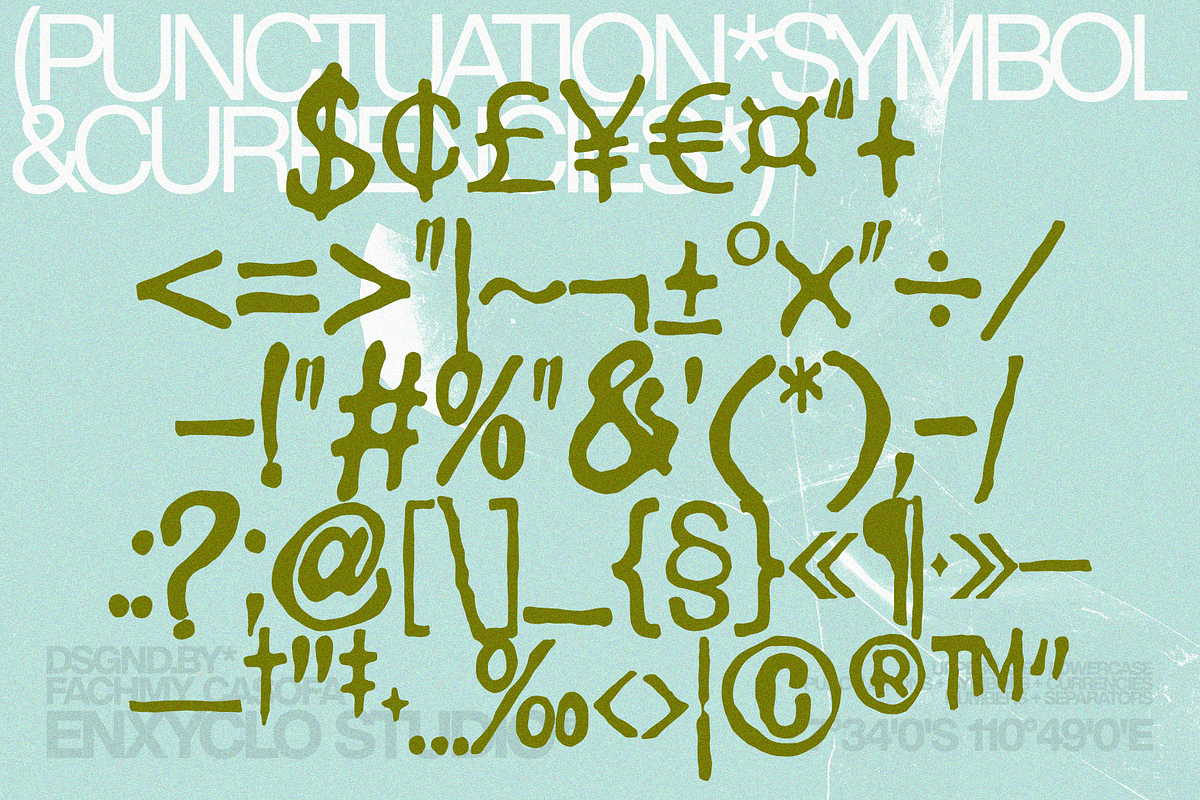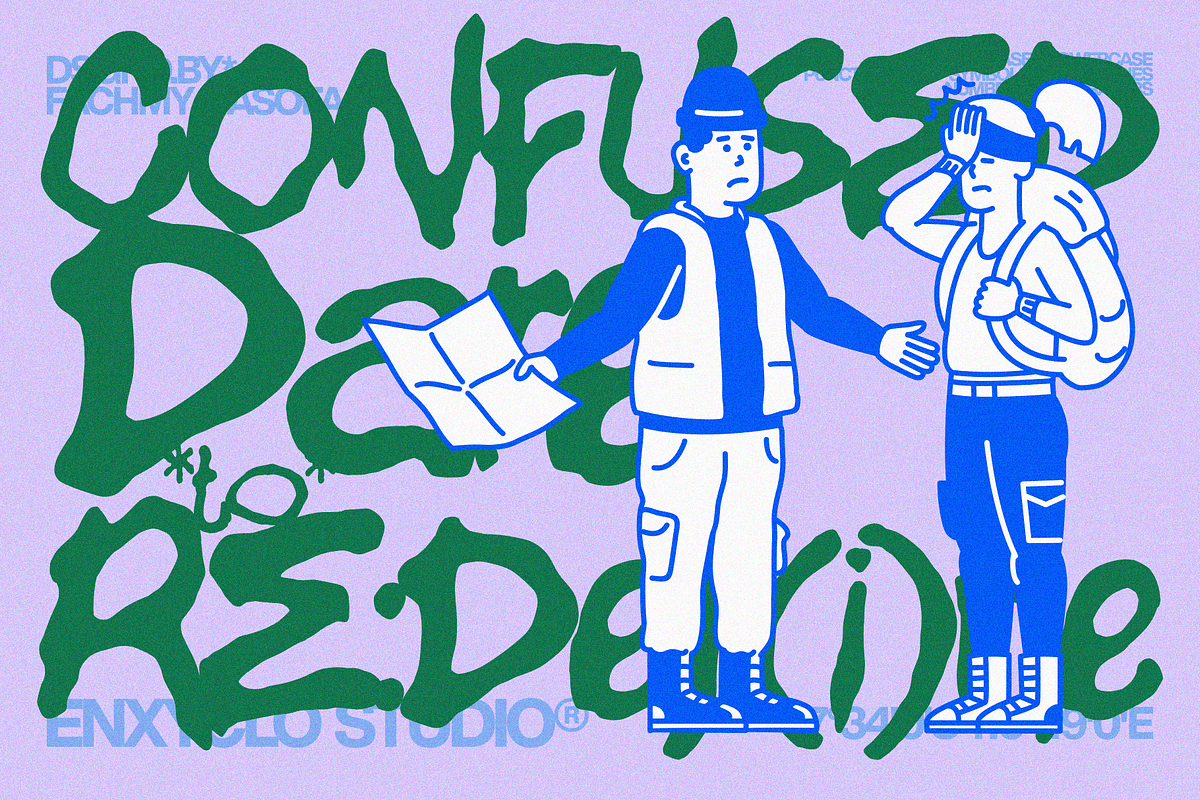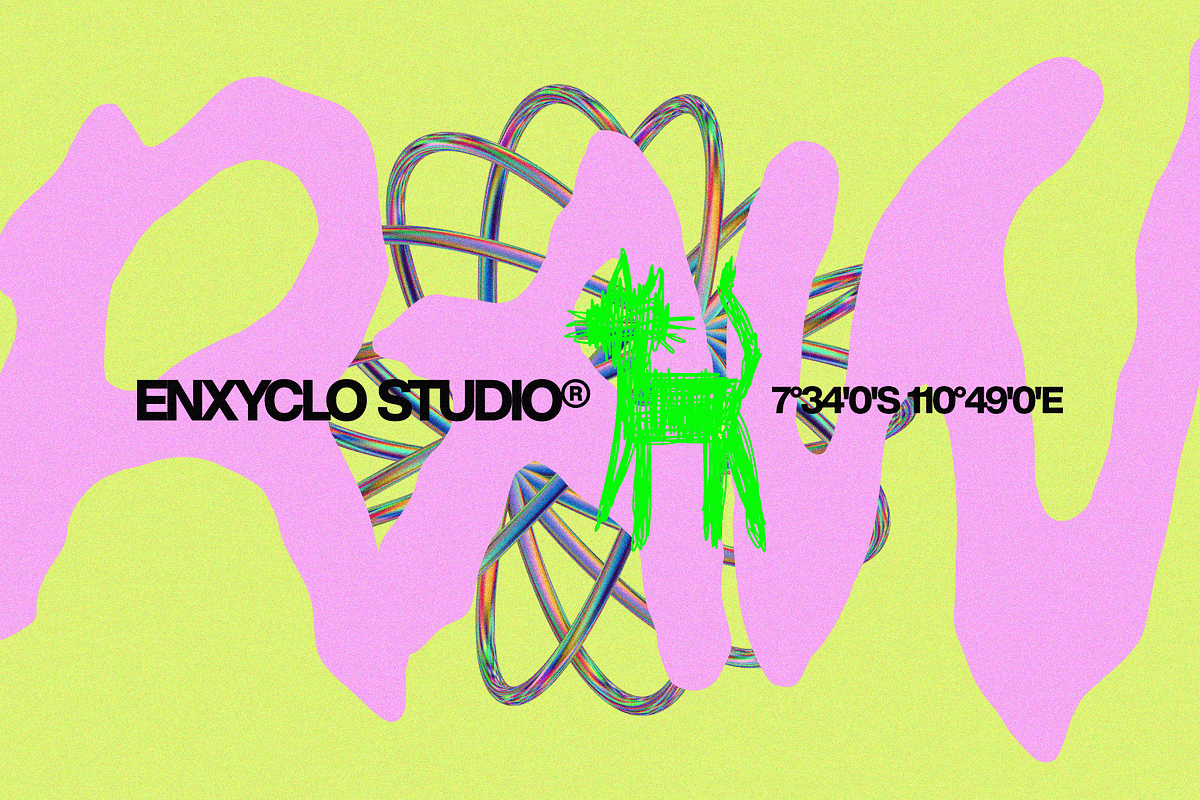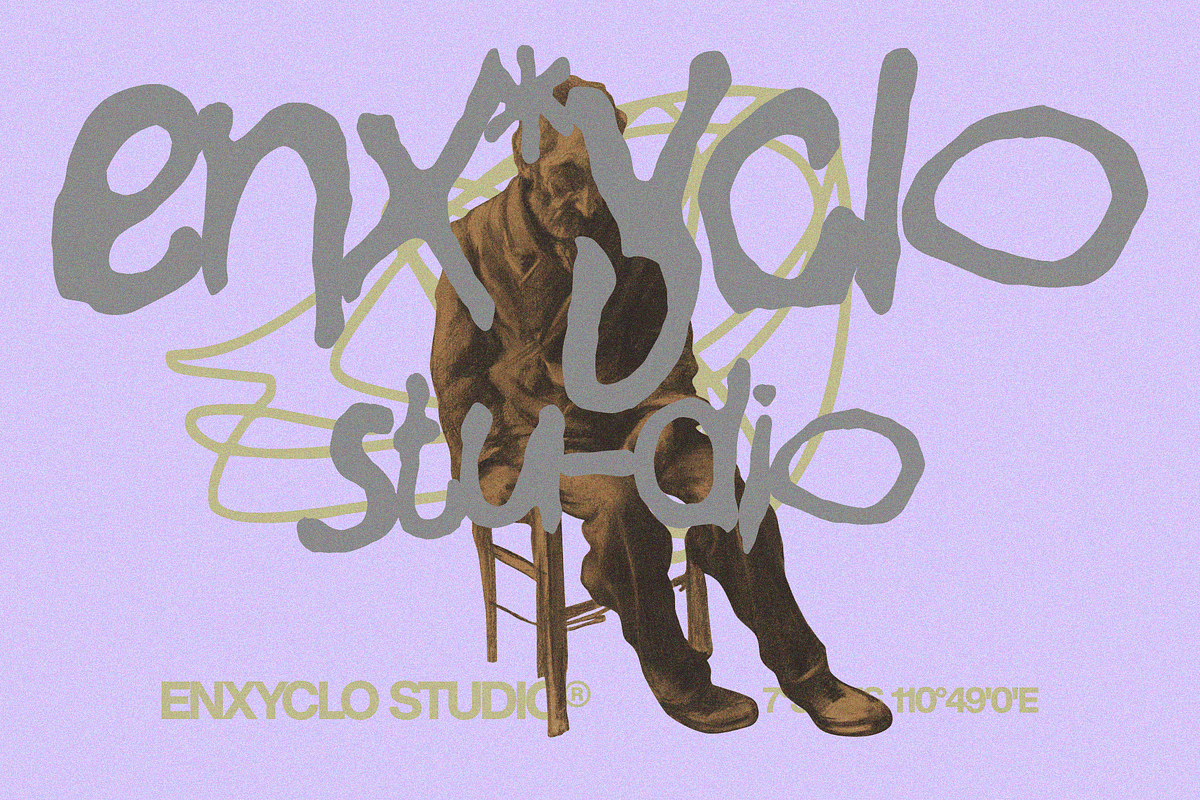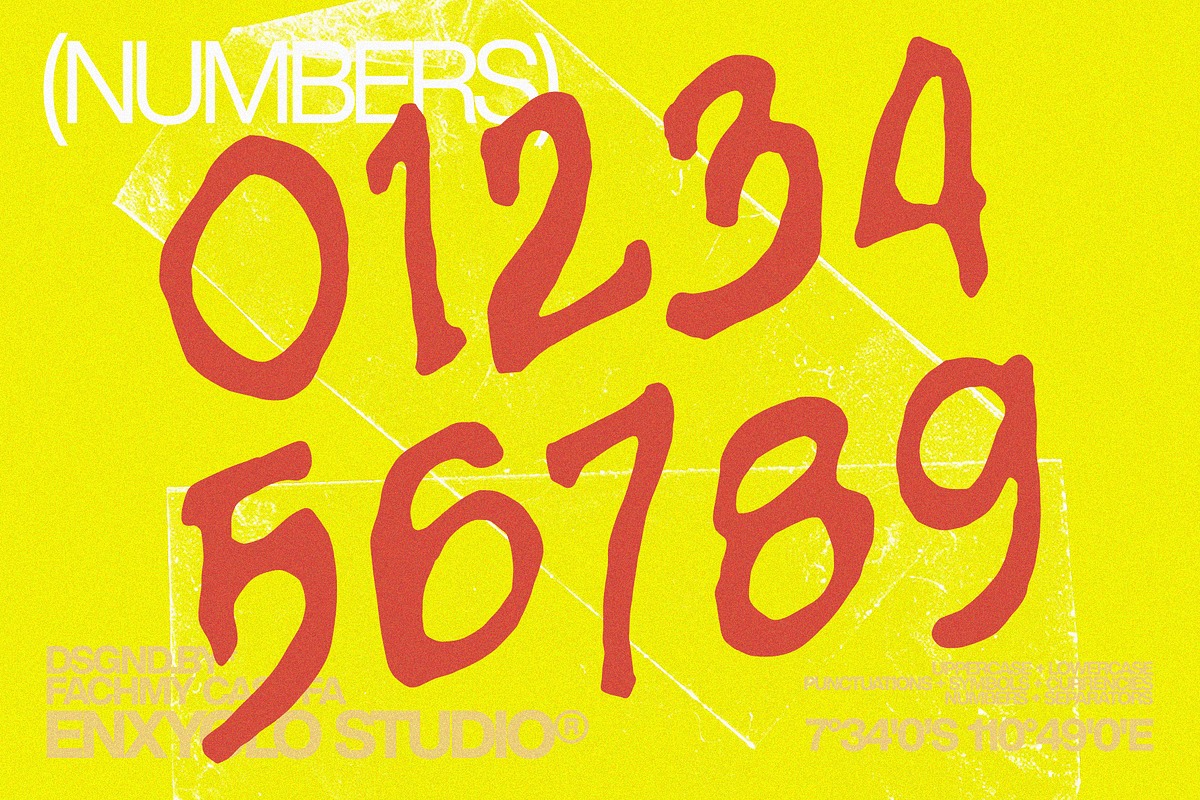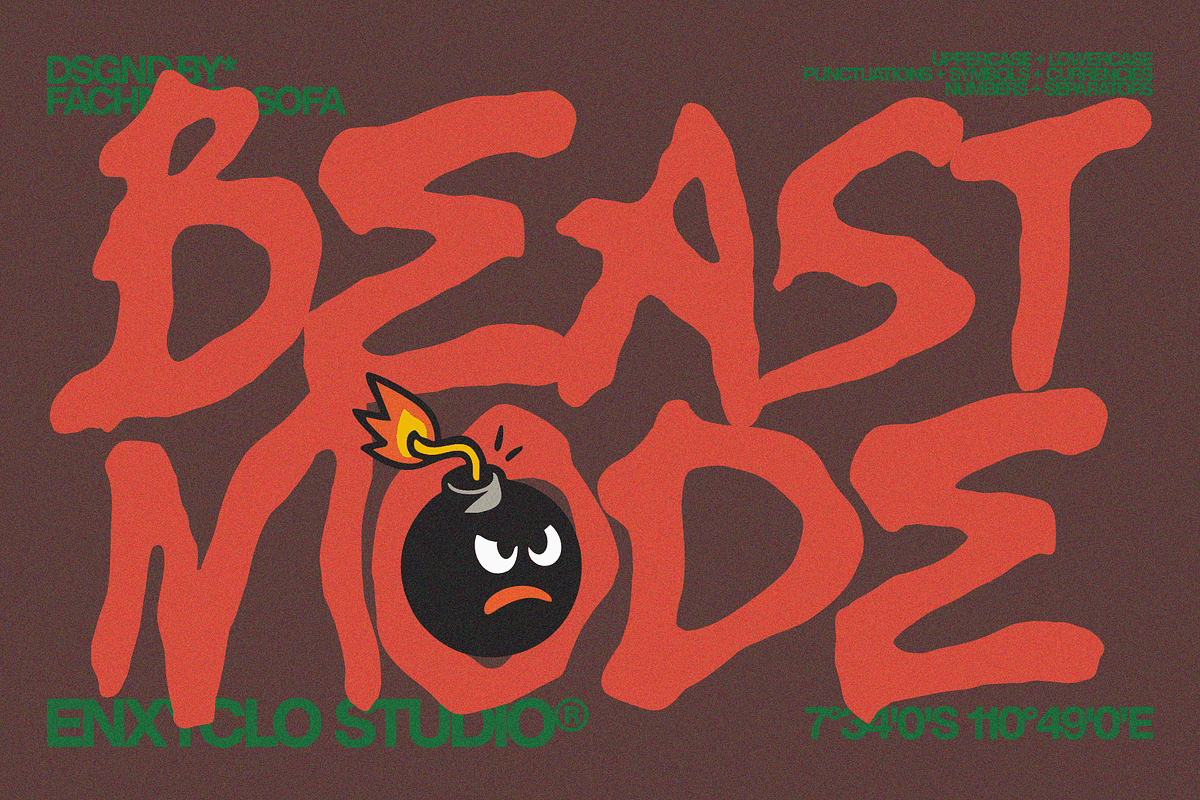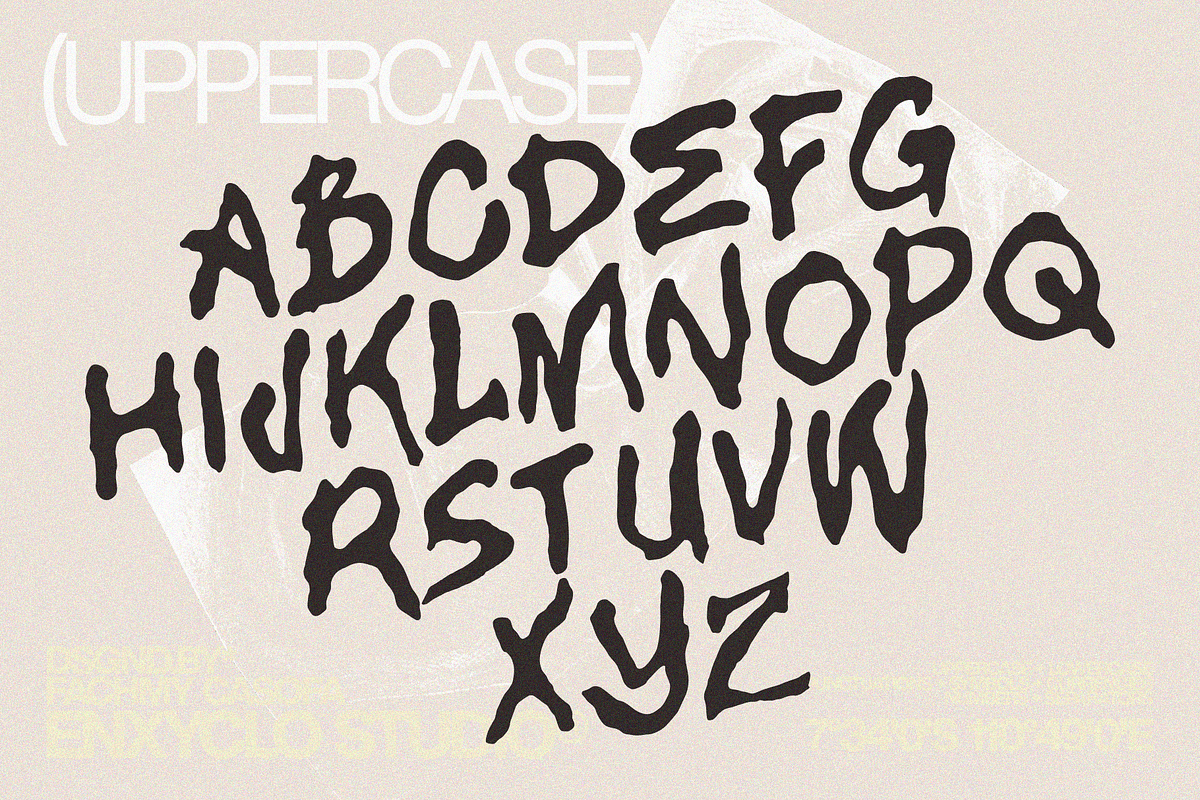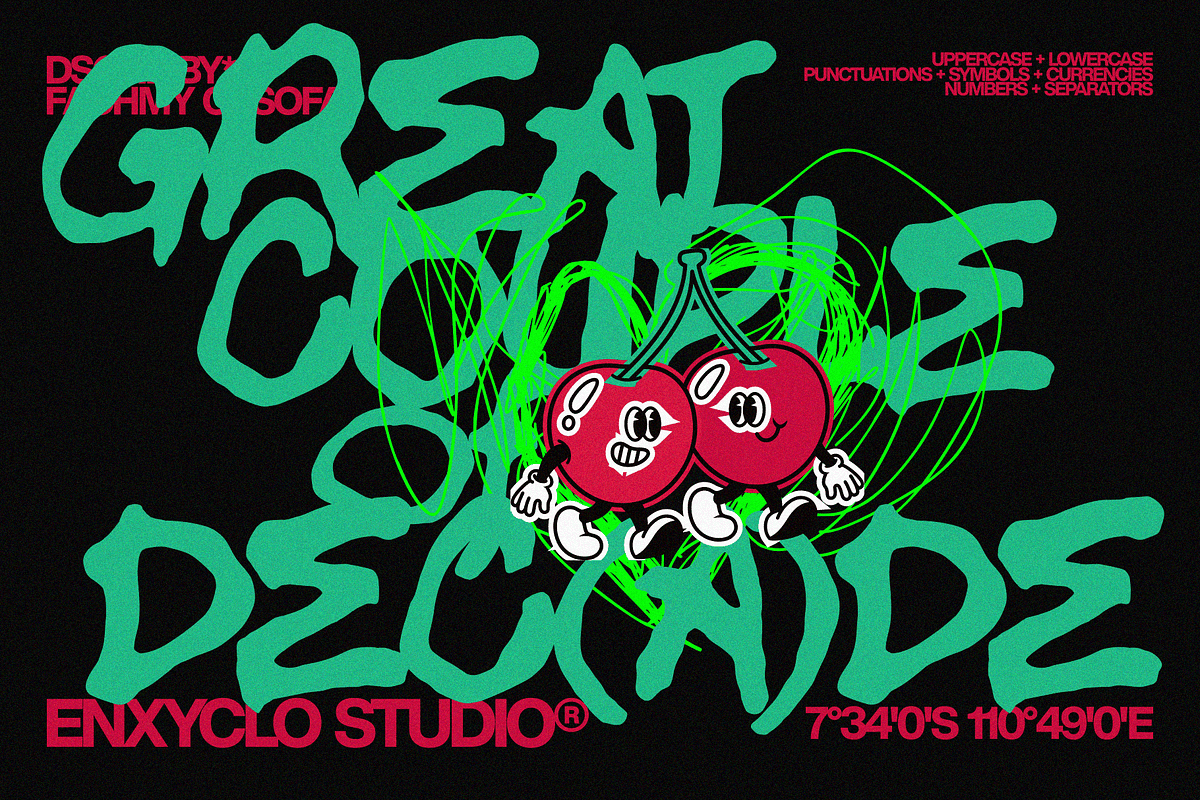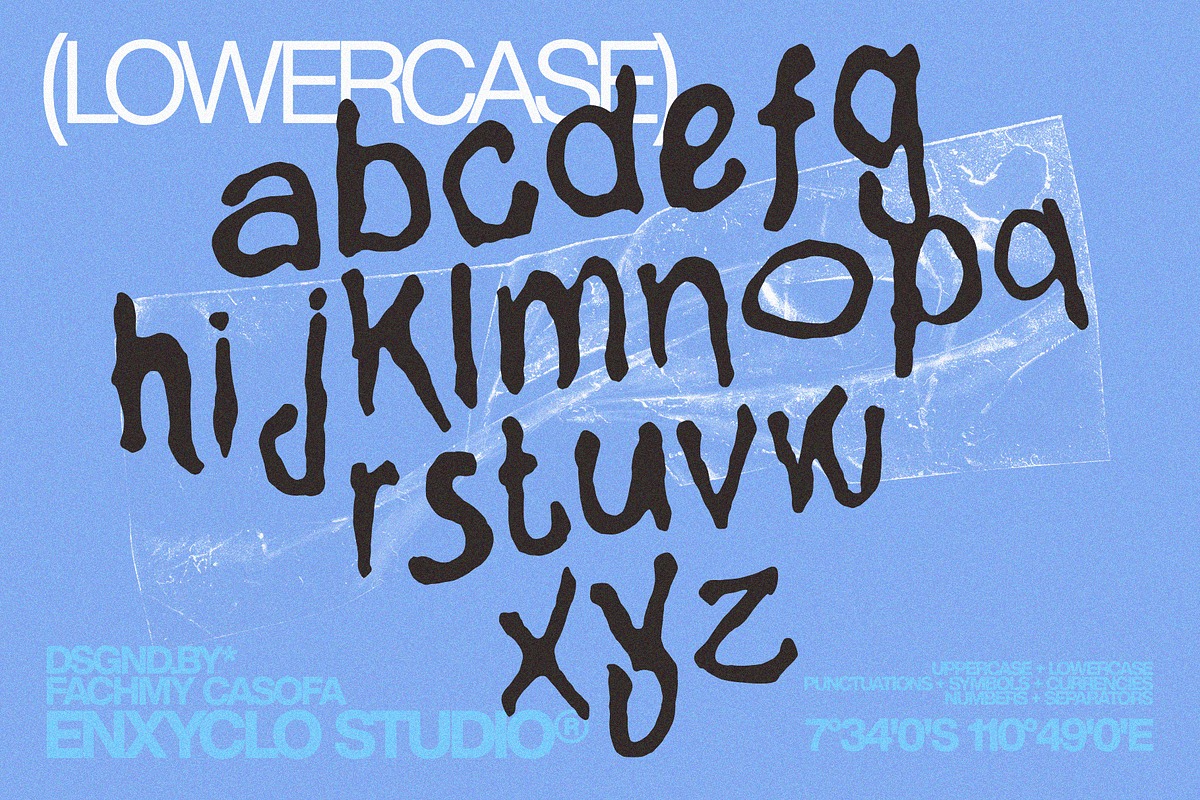
ENGHOLA — Urban Imperfect Font
ENGHOLA is a fearless expressive brush font built for modern brands that refuse to blend in. Born from rough hand-painted strokes and raw lettering energy, it captures the beauty of imperfection and transforms it into a confident contemporary statement.
Every curve carries attitude. Every stroke feels alive. ENGHOLA balances gritty texture with a clean, intentional structure—creating harmony between wild expression and modern control. The result is a bold visual voice that feels authentic, handcrafted, and powerfully present.
Designed for brands that crave character, ENGHOLA delivers strong readability without sacrificing personality. It’s expressive yet purposeful. Rough yet refined. Loud yet strategic.
From creative logos and agency branding to striking modern logotypes, ENGHOLA injects energy and edge into every design it touches.
This isn’t a font that sits quietly in the background. MEGANORS shows up.
FEATURE
- Uppercase letters
- Lowercase letters
- Punctuation marks
- Symbol set
- Currency symbols
PERFECT FOR
- Creative logo & logotype design
- Branding & brand identity
- Modern agency visuals
- Contemporary packaging
- Poster & headline design
- Social media graphics
- Creative campaigns & visual storytelling